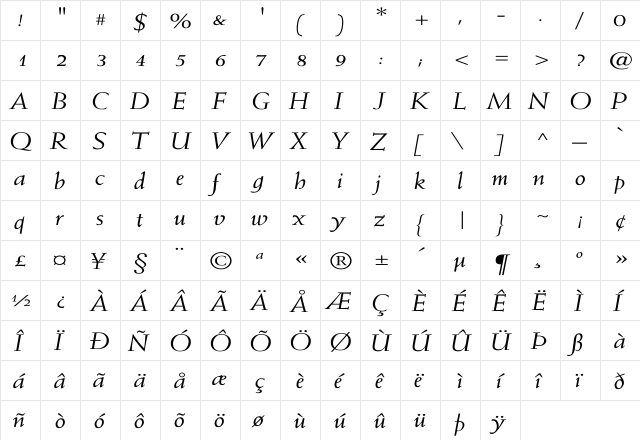
Weiss-Italic Wd Regular
Design Context for Weiss-Italic Wd Typeface
Weiss-Italic Wd offers clean, dependable letterforms without strong stylistic allegiance, making it a practical choice for designers who need flexibility. Its italic angle brings a sense of urgency and motion to the letterforms.
Pro Tip: Try Weiss-Italic Wd for annotation and caption copy alongside an upright companion — the contrast in angle creates a dynamic but ordered typographic system.